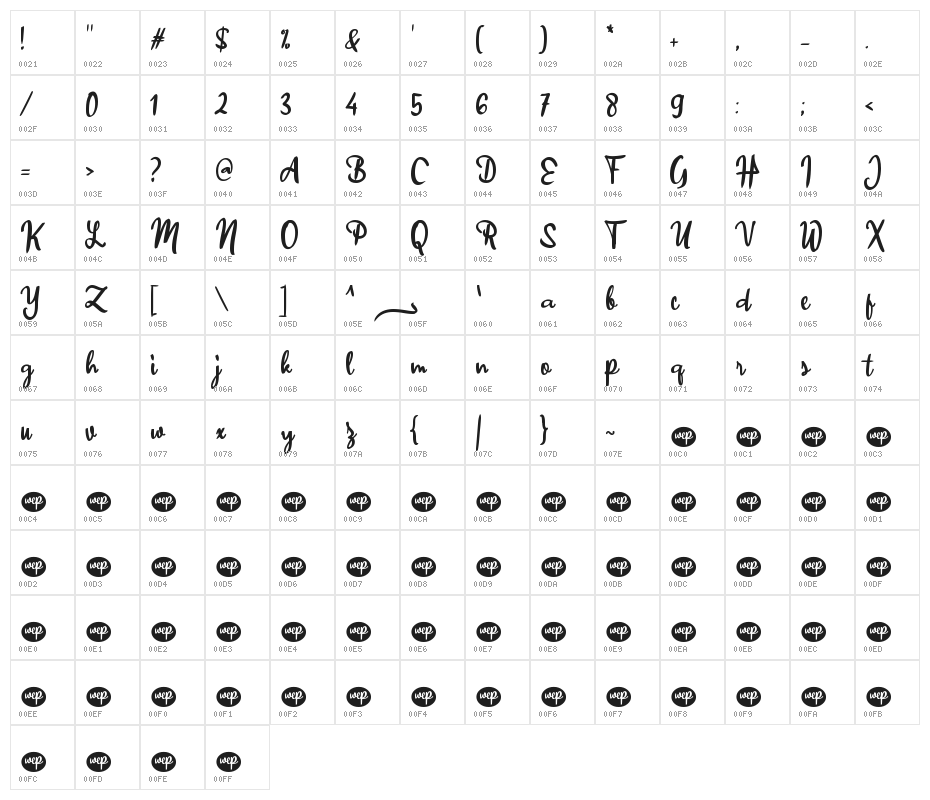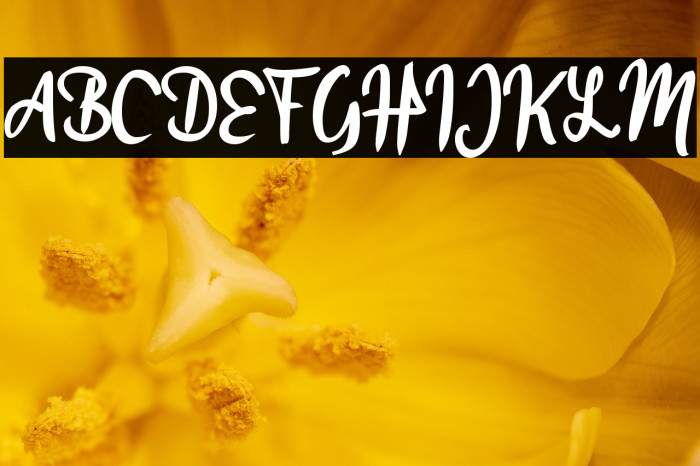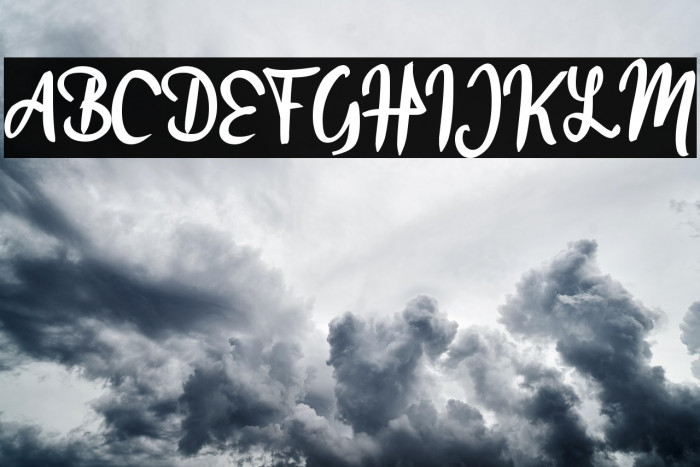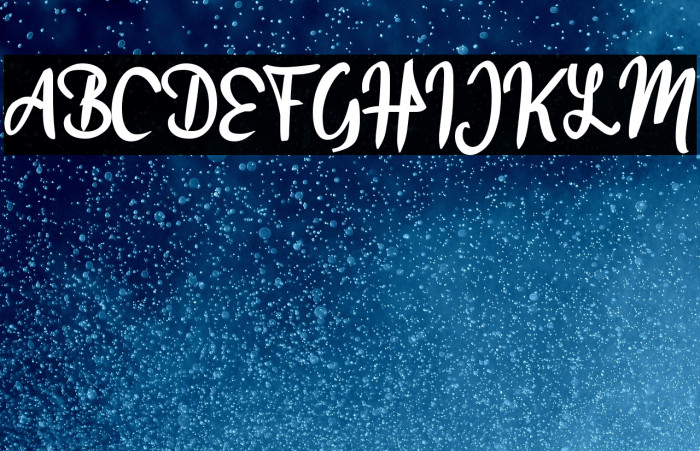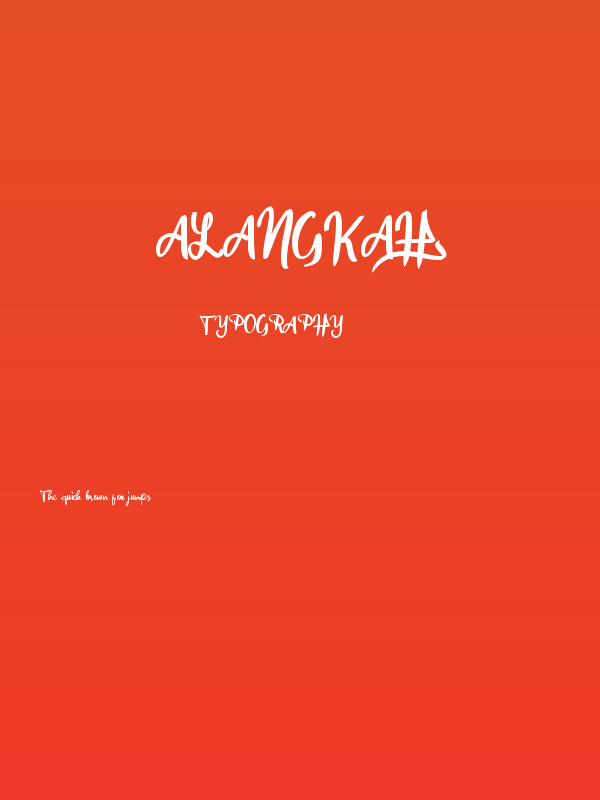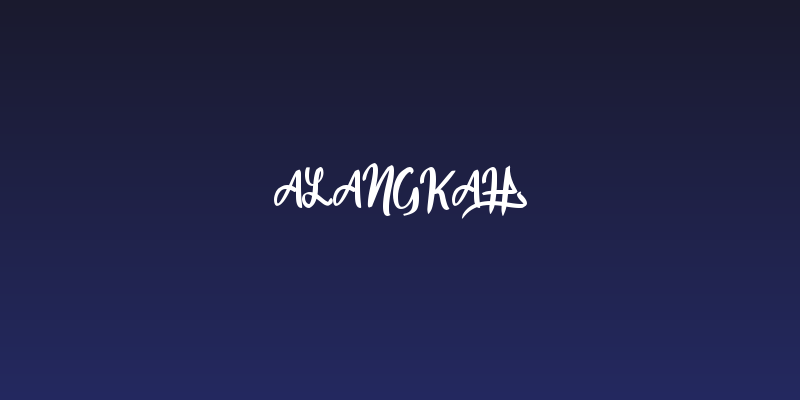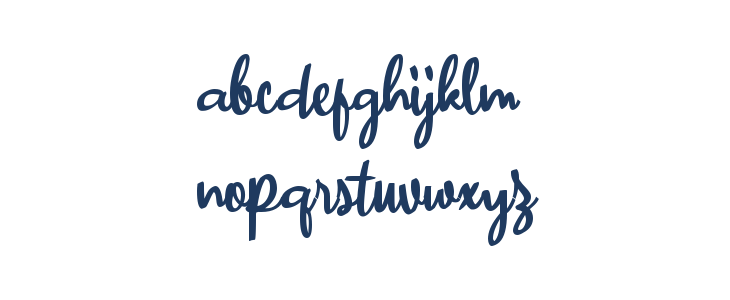
Alangkah_ Font
Alangkah_ Description
This font features a lively and flowing script style, characterized by its smooth, cursive strokes and playful loops. The uppercase letters are bold and expressive, with a slight slant that adds a dynamic feel. The lowercase letters maintain a consistent flow, enhancing readability while retaining an artistic flair. Numbers and special characters are crafted with the same attention to detail, ensuring a cohesive look across all elements. The overall design exudes a sense of elegance and creativity, making it suitable for various artistic and decorative applications.
| Proposed Projects | Ideal for wedding invitations, greeting cards, branding, and artistic projects. |